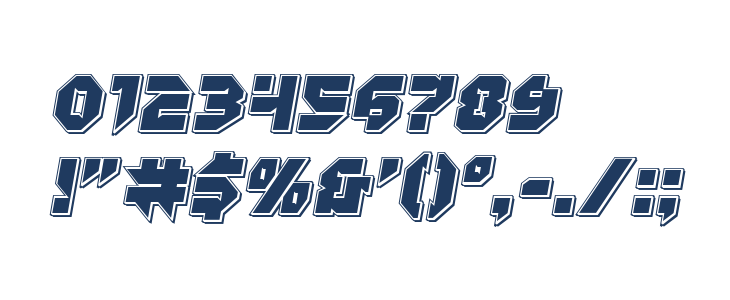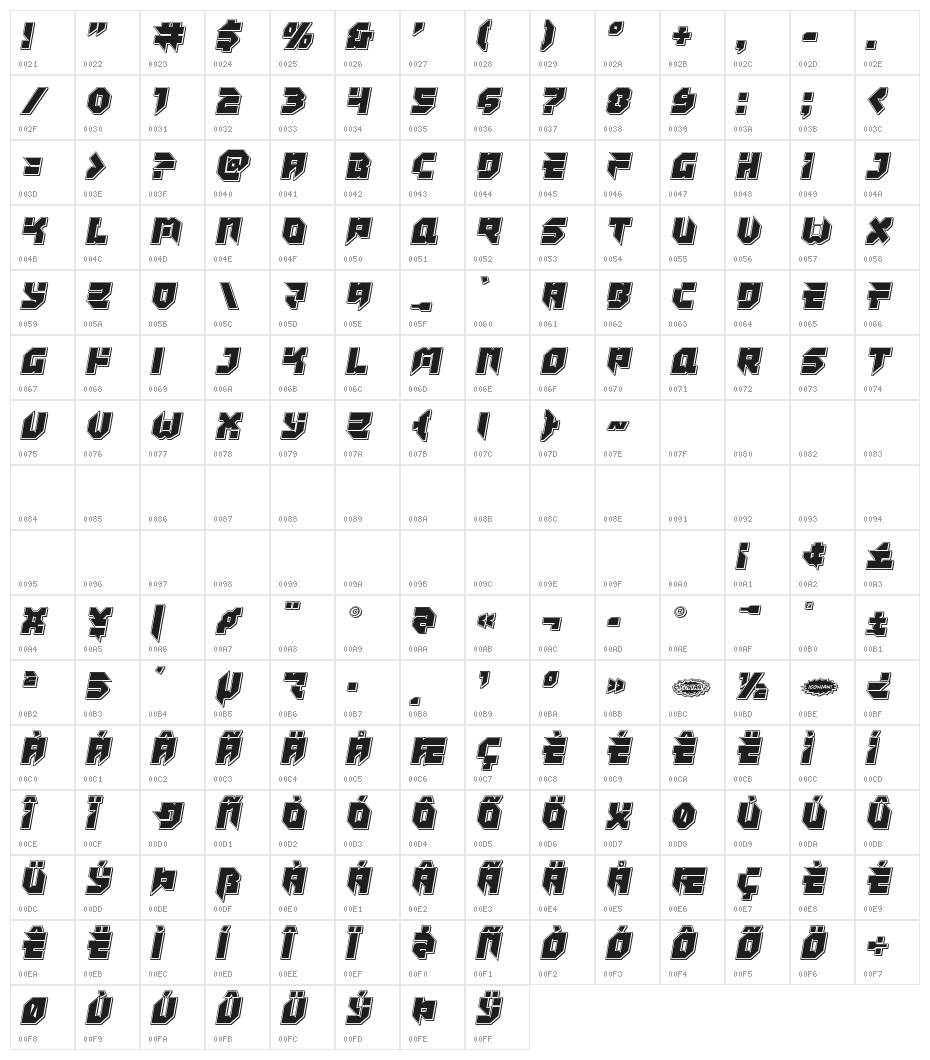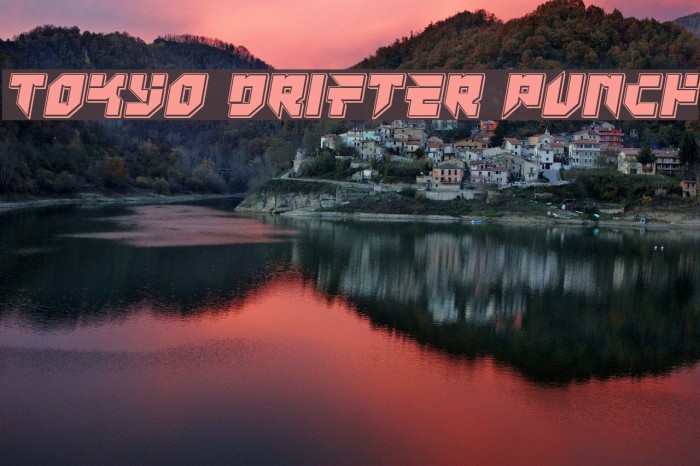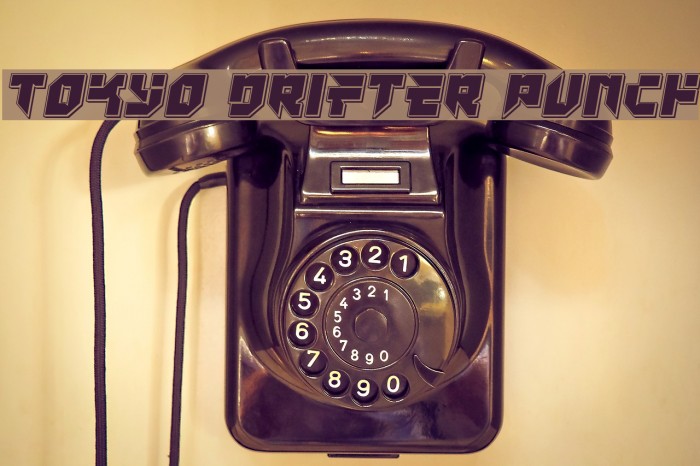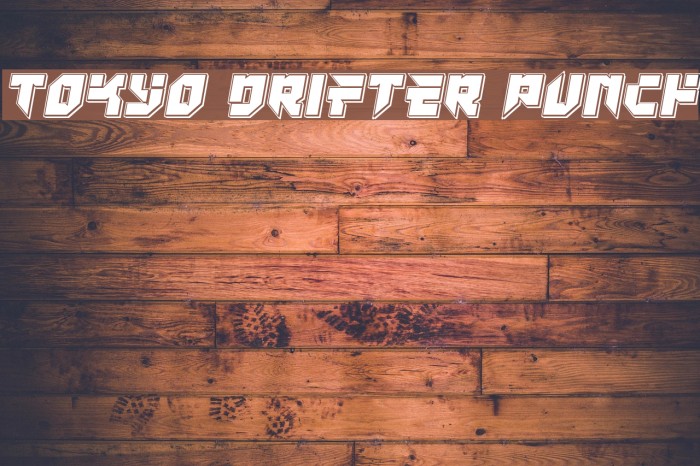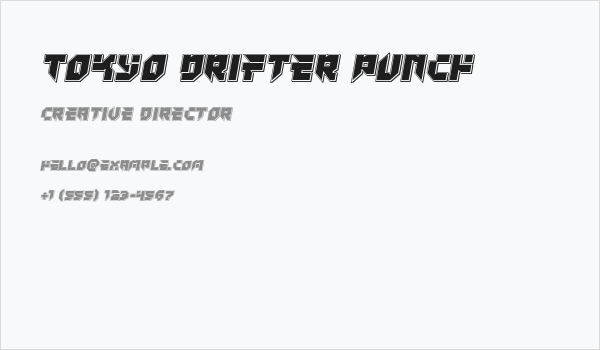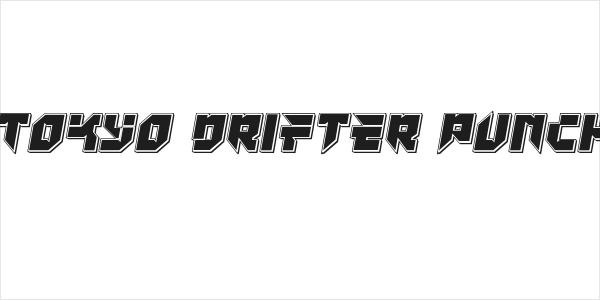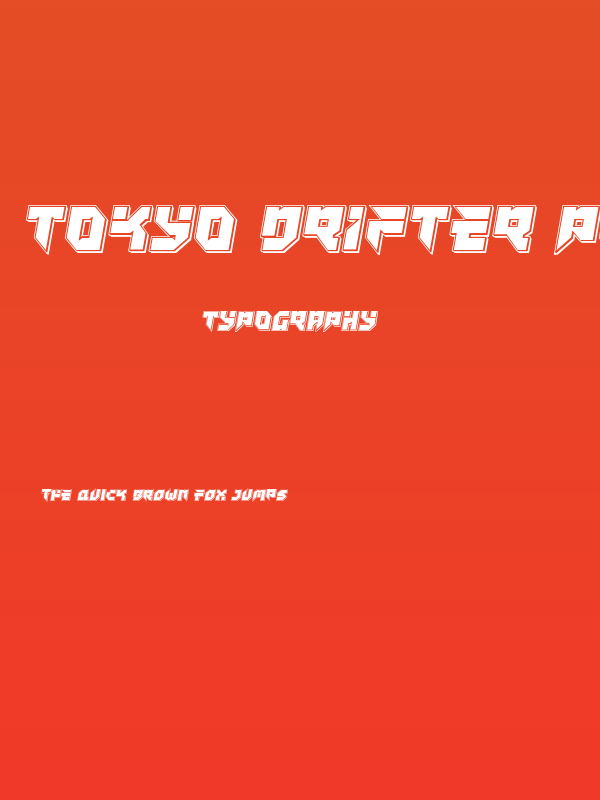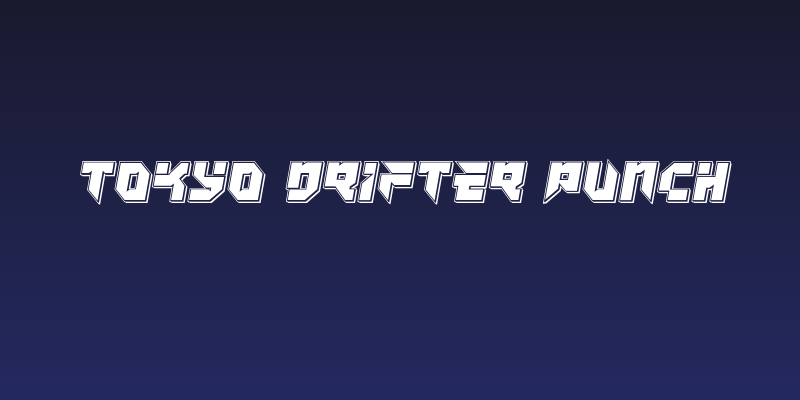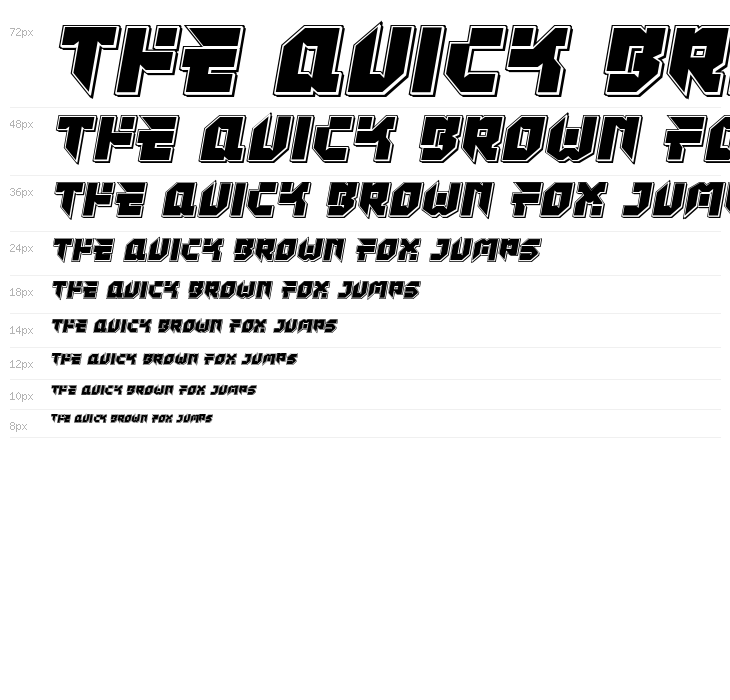
Tokyo Drifter Punch Font
Tokyo Drifter Punch Description
This font features a bold, geometric design with a distinct three-dimensional effect. The characters are sharply angled, giving them a futuristic and dynamic appearance. The thick outlines and shadowing create a sense of depth and movement, making it stand out prominently. Each letter is crafted with precision, maintaining a consistent style across both uppercase and lowercase alphabets. The numbers and special characters follow the same design principles, ensuring uniformity throughout. This font is ideal for projects that require a strong visual impact and a modern, edgy aesthetic.
| Proposed Projects | Ideal for video game titles, movie posters, branding for tech companies, and any project needing a modern, dynamic look. |